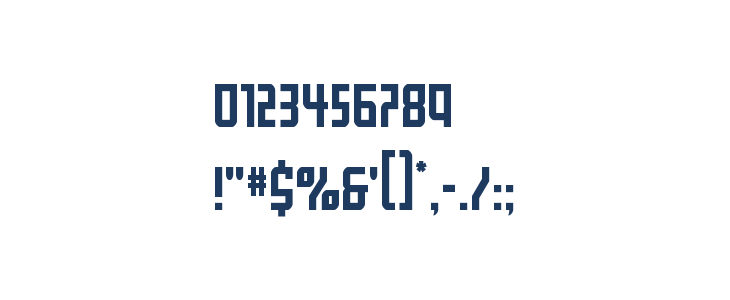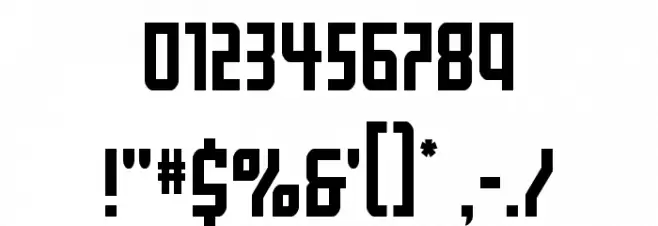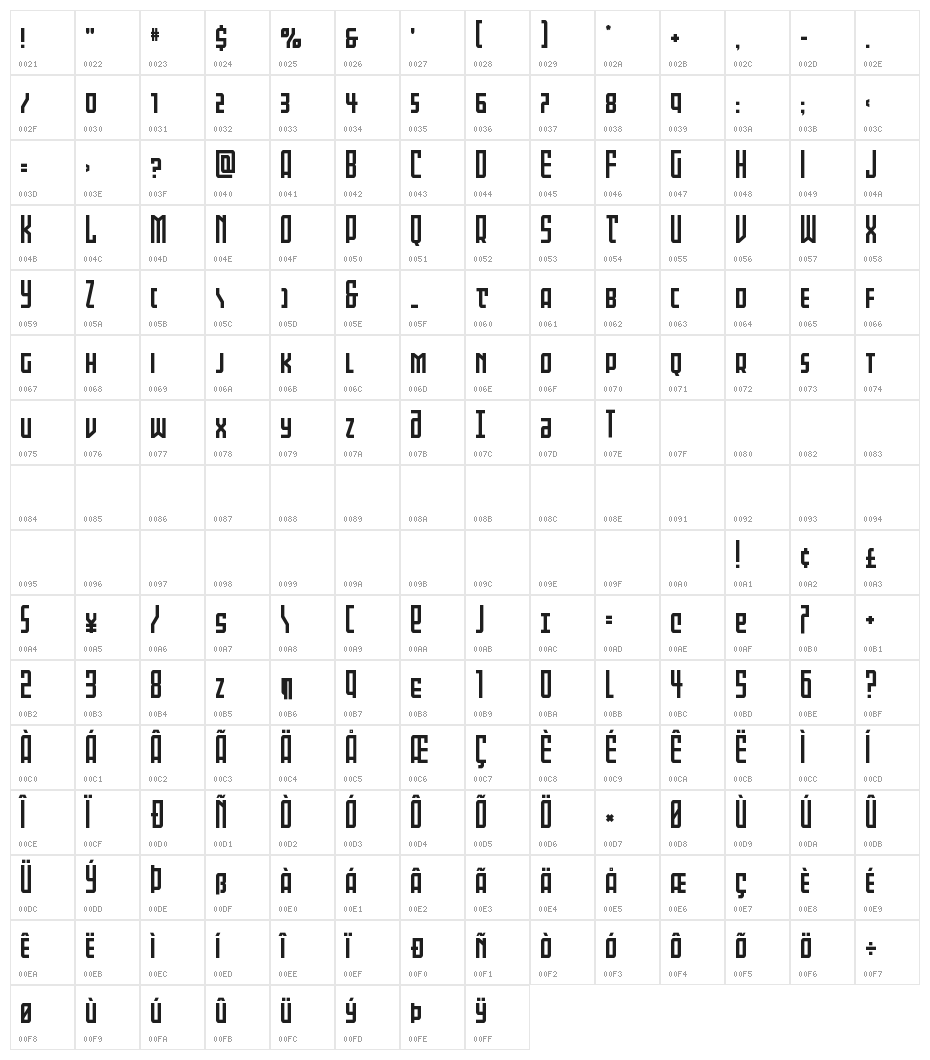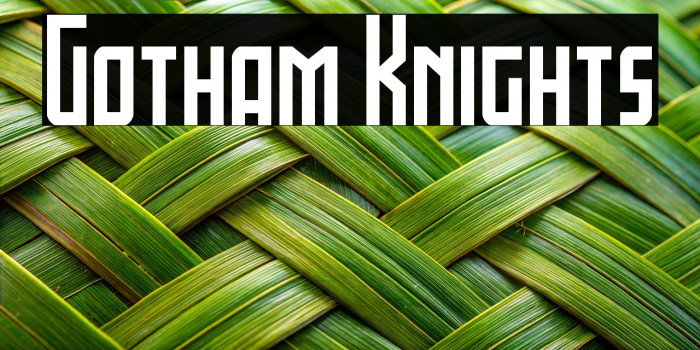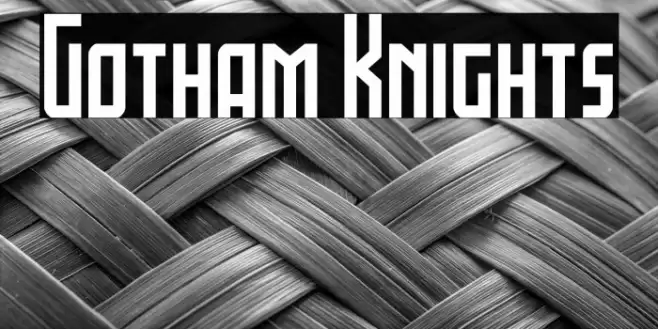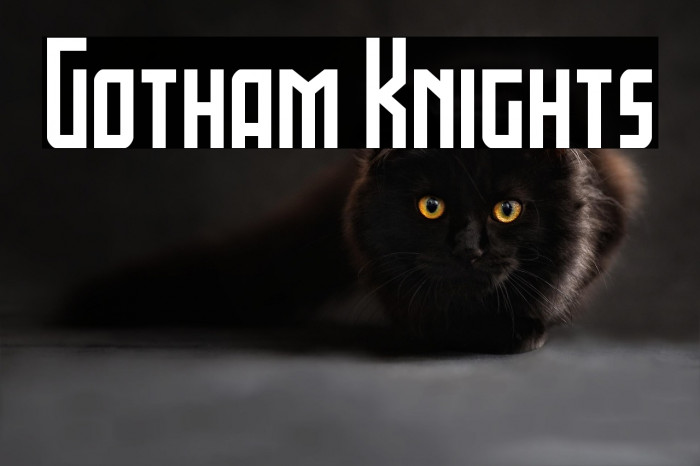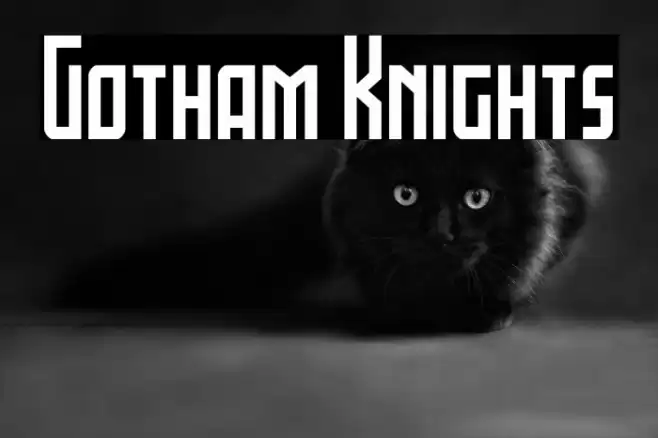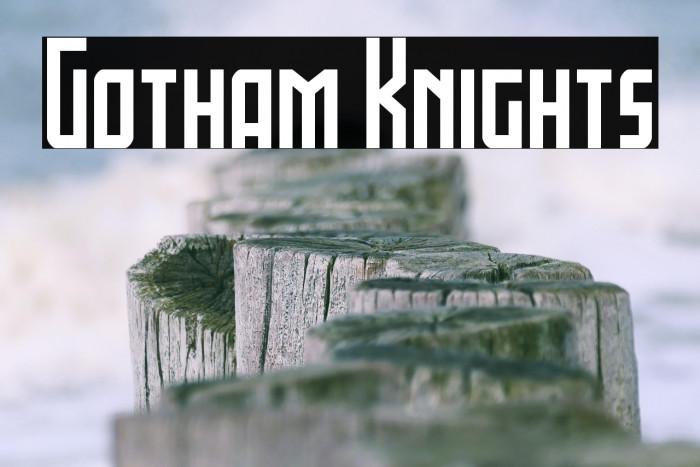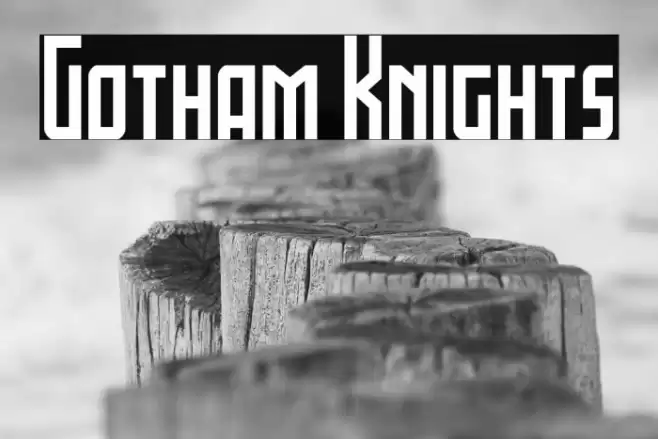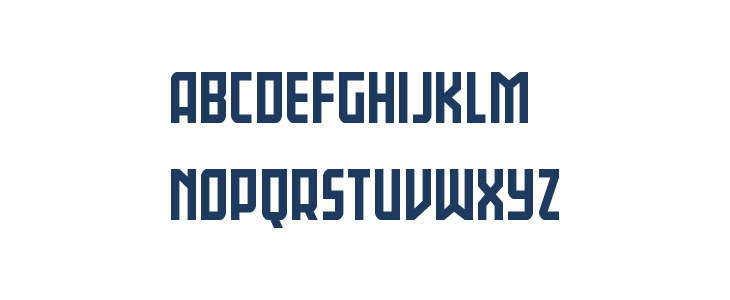
Gotham Knights Font
Gotham Knights Description
This font features a bold and geometric design, characterized by its strong, angular lines and uniform stroke width. The uppercase letters are particularly striking, with a futuristic and industrial feel that is both modern and assertive. The numerals and special characters maintain the same boldness and geometric precision, ensuring consistency across all glyphs. The font's overall appearance is clean and impactful, making it ideal for projects that require a strong visual presence.
Proposed ProjectsIdeal for video game titles, movie posters, branding for tech companies, and any project requiring a strong, modern aesthetic.